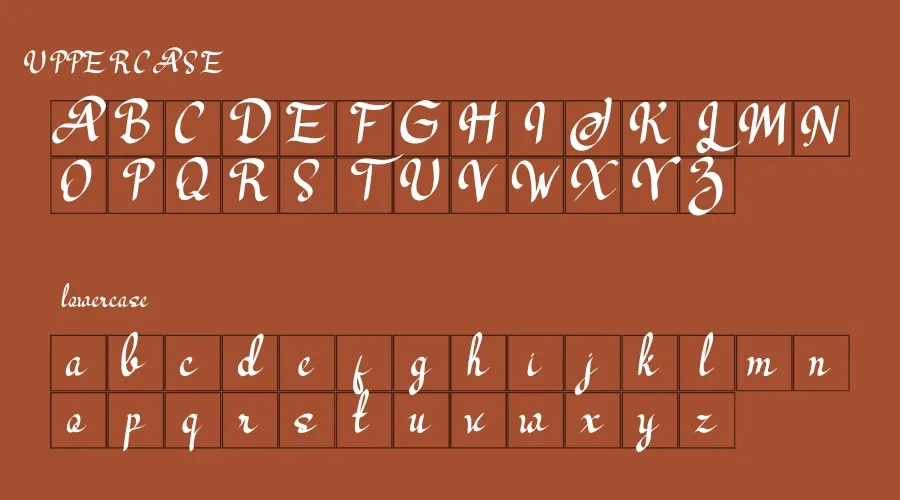
About Los Angeles Font
Naharstd designed Los Angeles Font it is a script textual design. Despite being a standard word typeface, the substance offers a stunning appearance to onlookers. Your initiatives may gain more traction thanks to this typeface.
The typeface’s shorelines font is the most comparable. This typeface may be utilized for various purposes. This typeface’s copying and pasting capabilities are really excellent. You may use it to design a program.
For viewers, the typeface has an appealing and tidy textural aspect. This typeface may therefore be utilized in a variety of layouts and tasks.
It is ideal for fashionable duties like emblems, ads, billboards, banners, and other kinds of approaches. This typeface is also fantastic for giving a distinctive style to professional materials by adding a stylish signature.
The typeface can suit your demands if you want anything classy and discreet or dramatic and eye-catching. Now that you have this font, you can start making stunning and original layouts.
Name | Los Angeles Font |
Designer | Naharstd |
Style | Calligraphy |